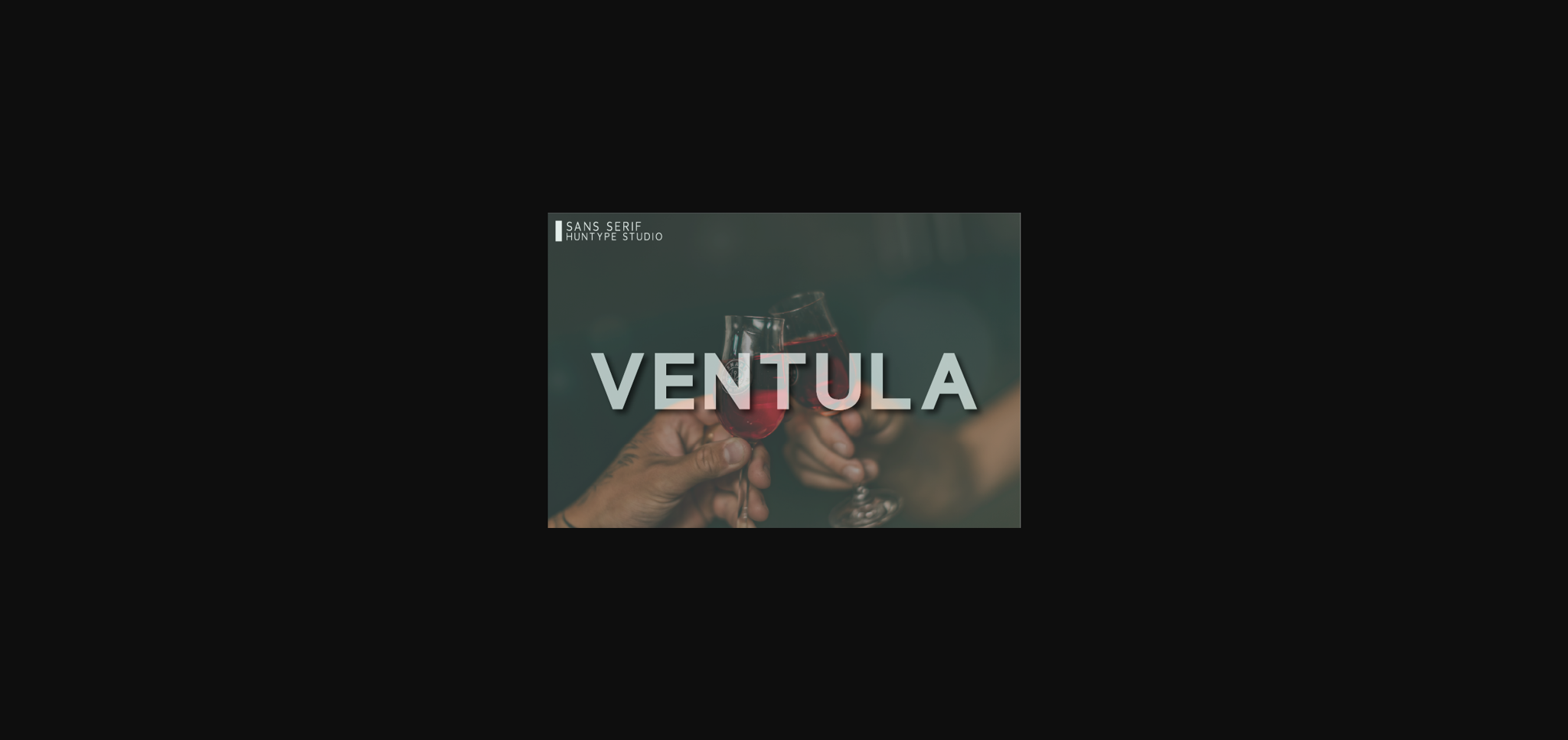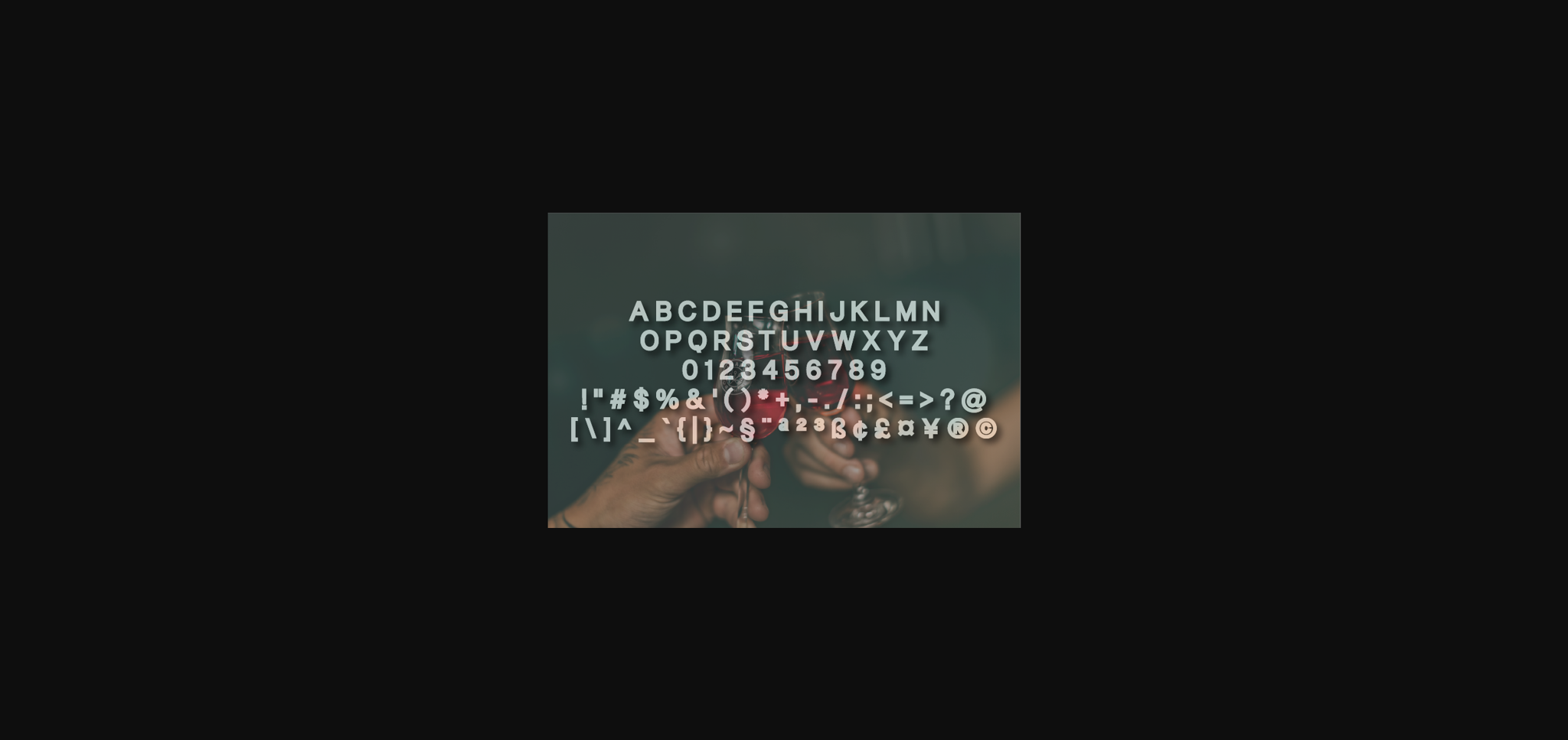
About Ventula Font
Ventula is a simple and casual sans serif font with an undeniably clean feel. With its neat and beautiful arrangement of letters, this typeface will look outstanding in both formal and non-formal designs.